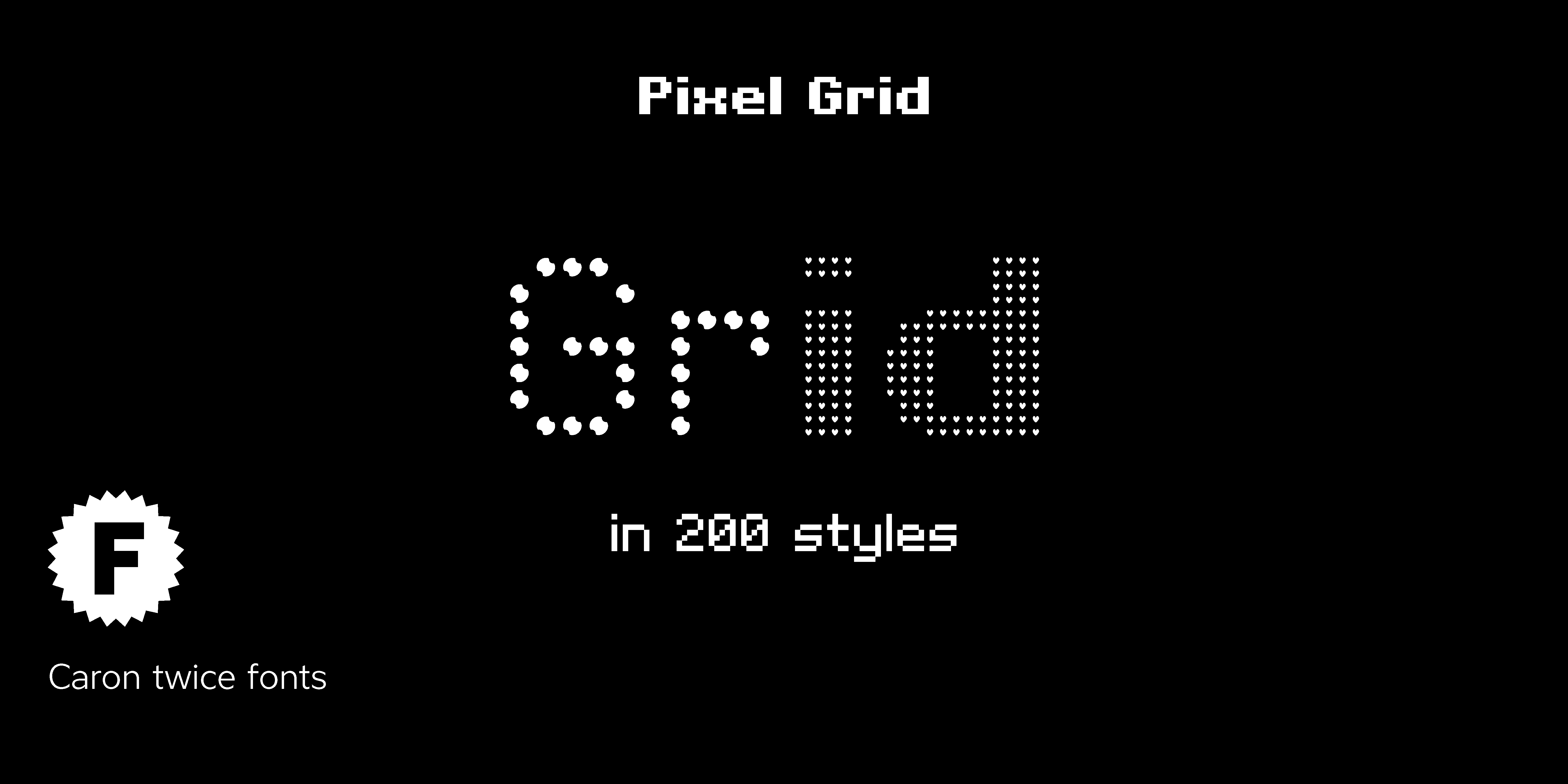
Pixel Grid Font Free Download is a distinctive and often retro-futuristic typeface, perfect for designs that aim to evoke the aesthetic of early digital displays, video games, or a raw, pixelated charm. Imagine it gracing unique indie game titles, nostalgic 8-bit themed event posters, cutting-edge tech art installations, or retro app interfaces. Its blocky, modular, and often monospaced character also makes it an excellent choice for gaming merchandise, distinctive digital art projects, and any design that needs to communicate a sense of digital precision or a throwback to vintage computing. Whether your goal is to impart a sense of technological nostalgia, a modern glitch aesthetic, or clear, grid-based readability, Pixel Grid Font offers the stylistic punch to elevate your creative vision.
What makes Pixel Grid Font truly exciting is its immediate ability to create a distinctive visual identity that resonates with digital culture. It breaks down letterforms into their fundamental building blocks, offering a bold and unmistakable look that is both functional and artfully stylized. This isn't just another display font; it's a meticulously crafted typeface that brings a unique blend of digital nostalgia and undeniable impact to any text. Designers will appreciate its strong visual appeal and how it can effortlessly infuse a design with a dynamic, memorable character, making it a compelling choice for projects that need to stand out and communicate a specific tech-savvy or retro-gaming vibe.
The Pixel Grid Font family typically offers a focused range of styles that embody its distinctive, pixelated character. You can generally expect a Regular weight that forms the core of its aesthetic, perfectly capturing its digital essence. Depending on the specific design, it might also include Bold variations for emphasis, or perhaps Outline versions for versatile layering effects. Given its nature, some versions might also include specific icon sets or extended character support for certain digital environments. This thoughtful range ensures that Pixel Grid Font Free Download can be effectively utilized for both prominent headlines where its unique character can shine and for more subtle digital elements where its consistent, grid-based aesthetic is desired.